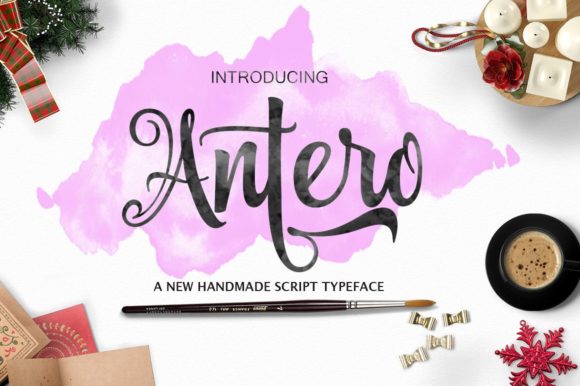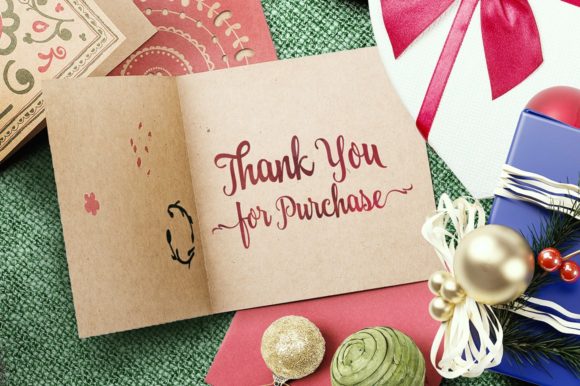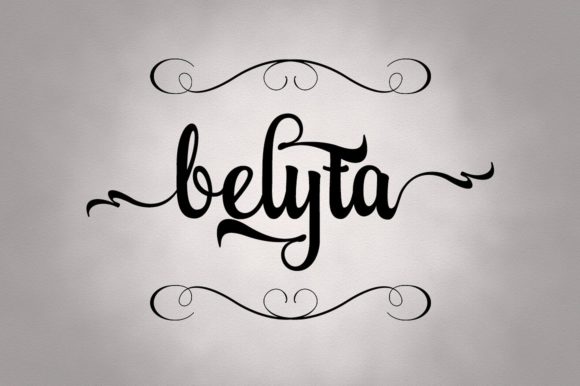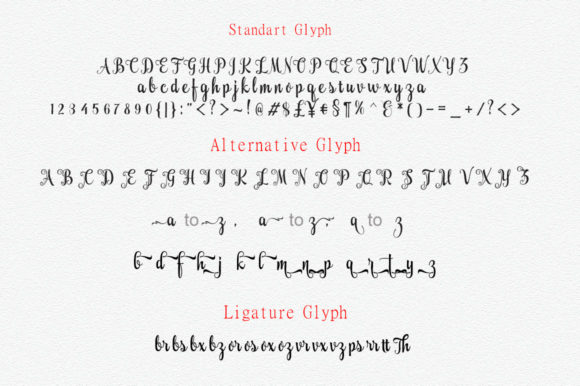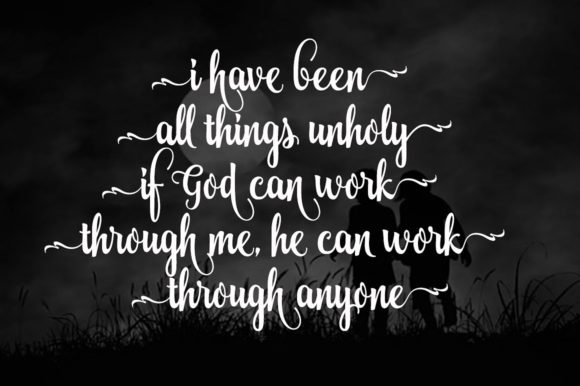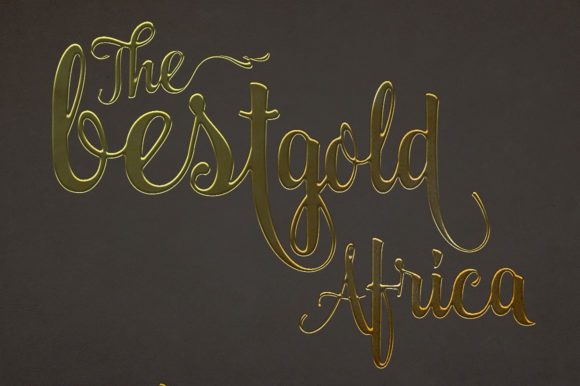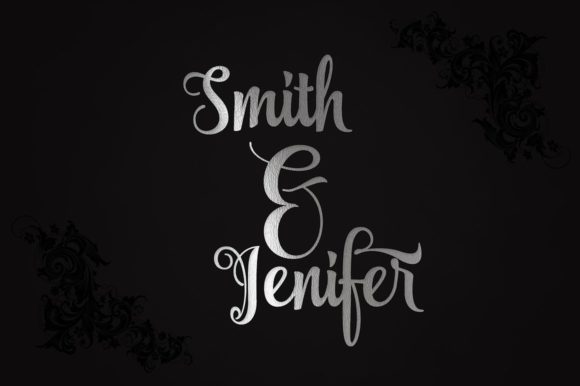
HomeScript FontsAntero Font Script Fonts Antero Font FacebookXPinterestWhatsApp Antero Font Poster 2 Antero Font Poster 3 Antero Font Poster 4 Antero Font Poster 5 Antero Font Poster 6 Antero Font Poster 7 About Antero Font The Antero is a modern calligraphy font. It has a beautiful elegant feel and a natural writing style. DOWNLOAD ON CREATIVE FABRICAThis font is sold and delivered by Creative Fabrica. Font Canyon may earn a commission if you buy through this link. People also explored Katien Whimsy Font Umbrella Font Ebnantti Script Font Alesha Font Quick Chicks Font Shine Lotus Mandala Font Valentine Penquin Font Sanwanee Font Anthelo – Cursive Font 275 0 TagsAntero Font Previous articleThe Bagenda FontNext articleScylla Font LEAVE A REPLY Cancel reply Comment: Please enter your comment! Name:* Please enter your name here Email:* You have entered an incorrect email address! Please enter your email address here Website: Save my name, email, and website in this browser for the next time I comment. Personal Use Free Bruttney Personal Use Free Read more about this font Midnight Show Personal Use Free Read more about this font Eric”s Personal Use Free Read more about this font Angista Script Personal Use Free Read more about this font BLOG Where to Buy American Fonts Online in 2024 Where to Buy American Fonts Online: The Ultimate Guide for 2024 Looking for the perfect American font to elevate your design projects? You're in the... Top 7 Google Fonts Alternatives for Faster and Privacy-Friendly Web Design (2025) 5 Fonts That Will Dominate Design Trends in 2026 How to Cut Any Font on Cricut: Convert a Font to SVG (Free)